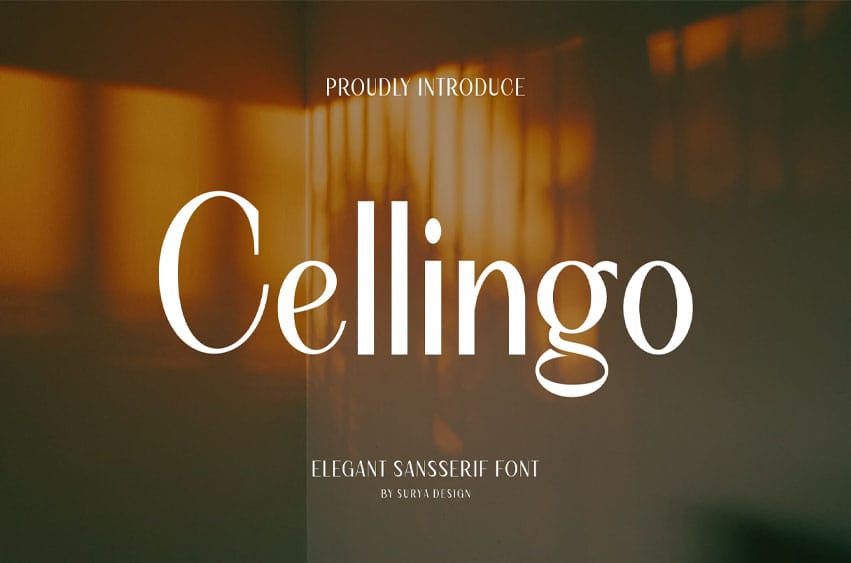
Cellingo Font Modern Font is a bold and authentic display font. The font is suitable for any branding project like logo, t-shirt printing, esport, and many more. outstanding in a wide range of contexts.